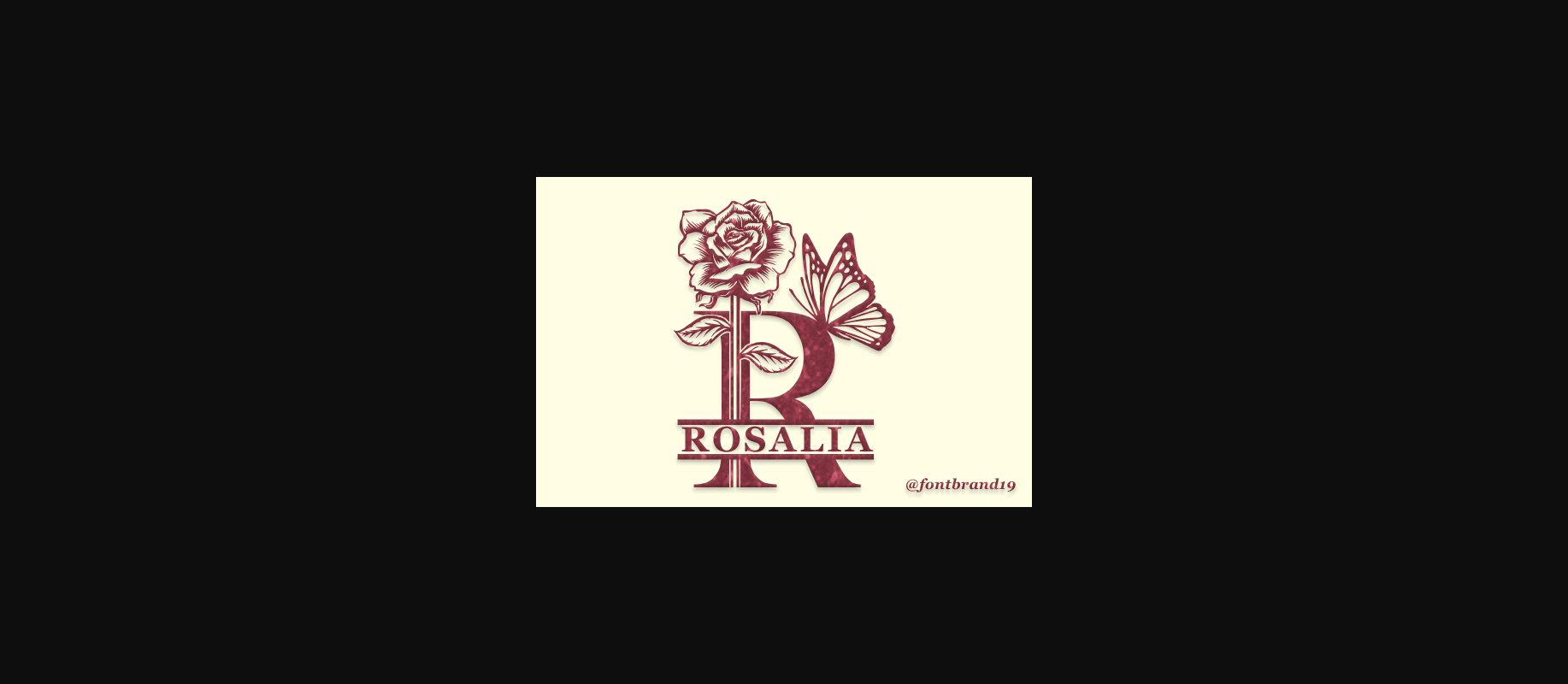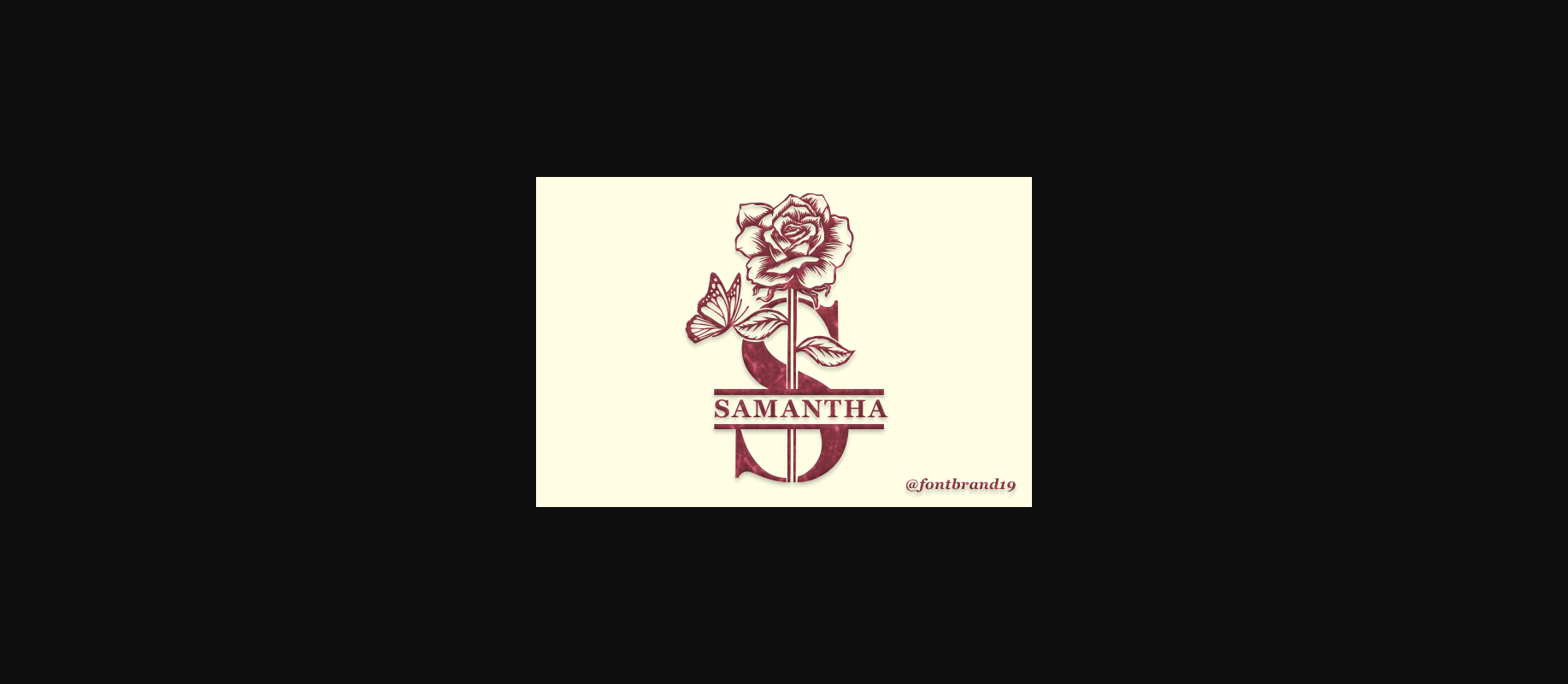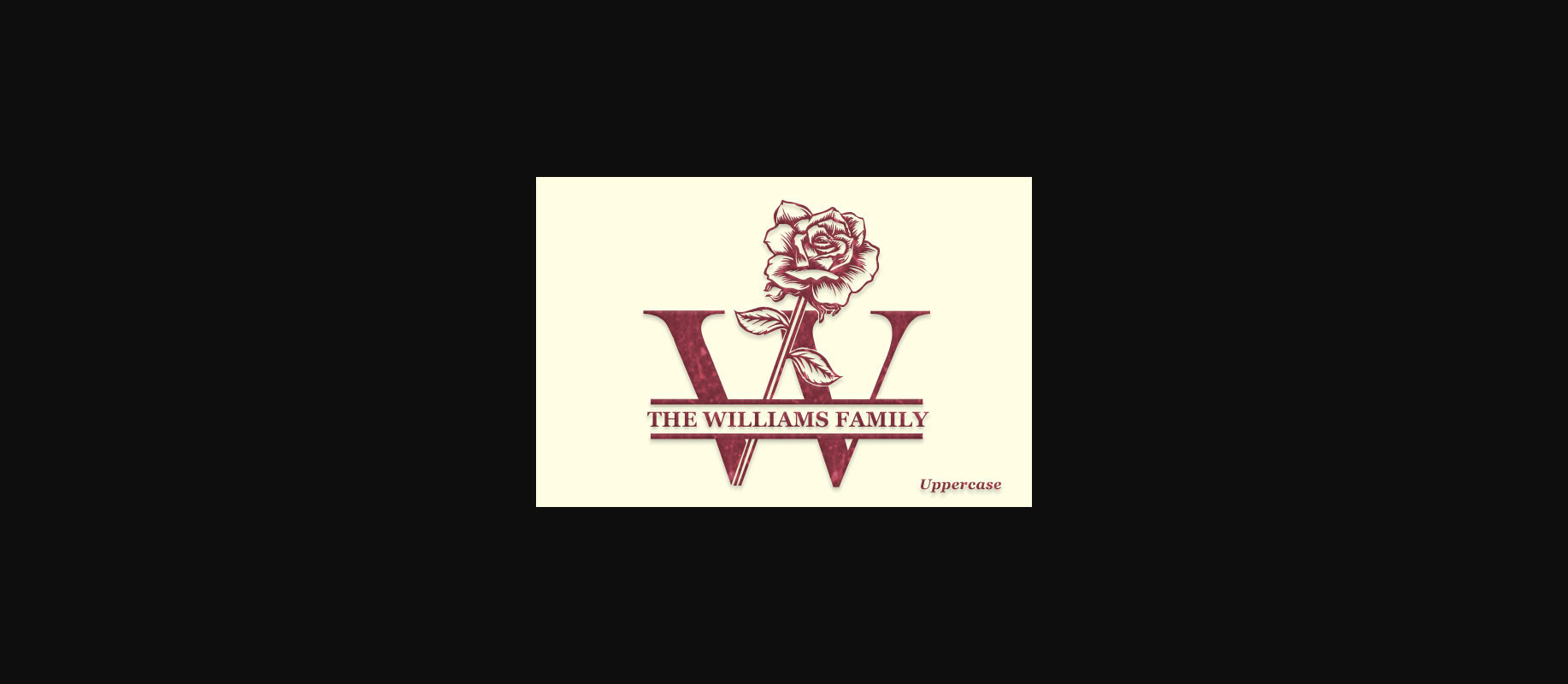
About Rosalia Monogram Font
Rosalia Monogram is an elegant decorative font, featuring lovely ornaments. Fall in love with its authentic feel and use it to create gorgeous wedding invitations, beautiful stationary art, eye-catching social media posts, and cute greeting cards.